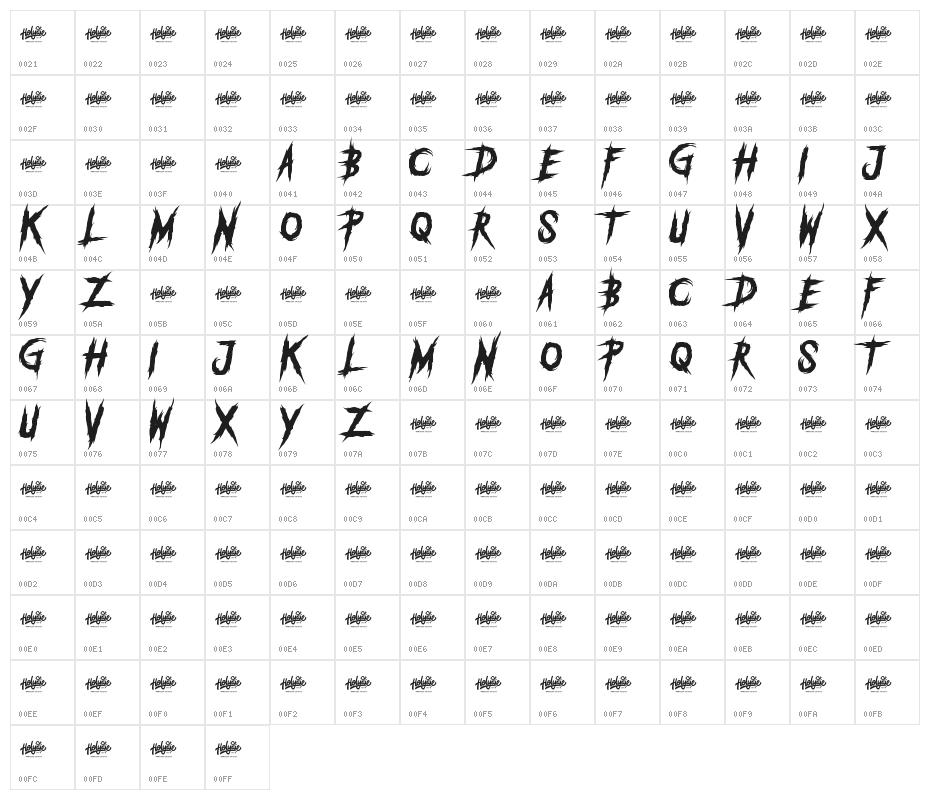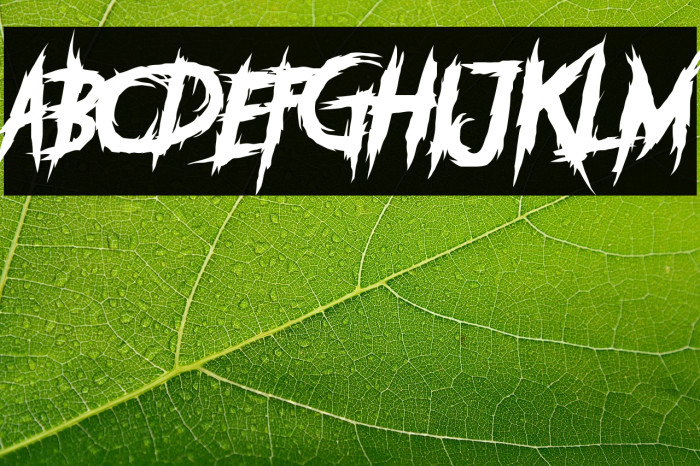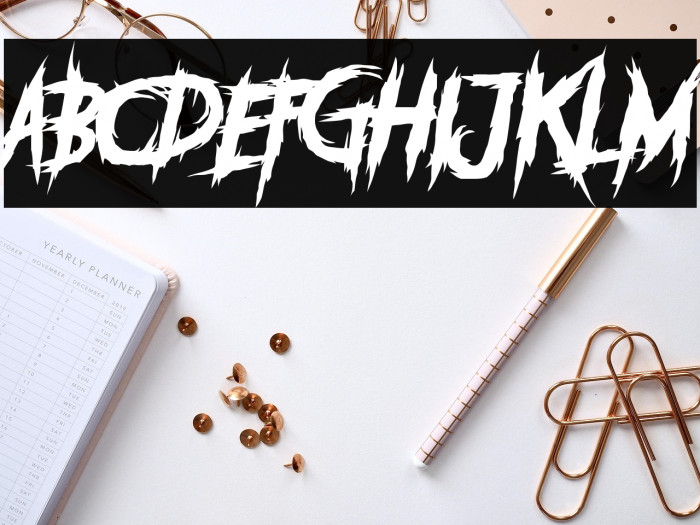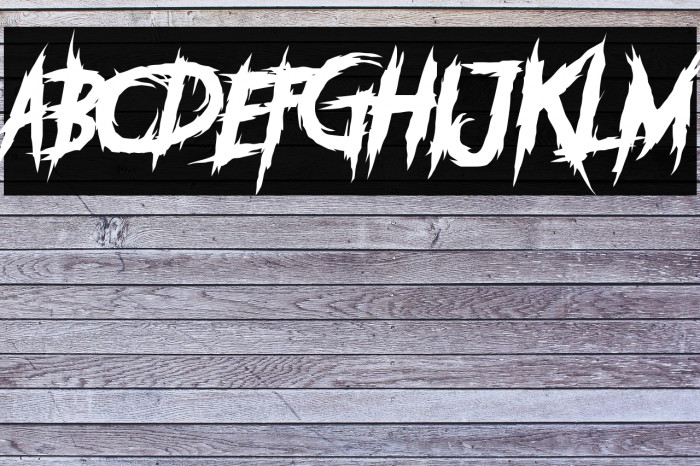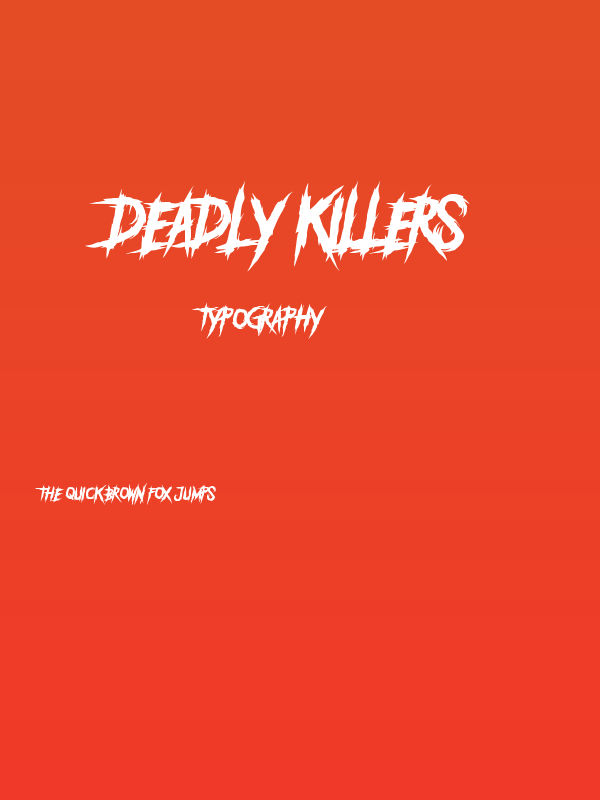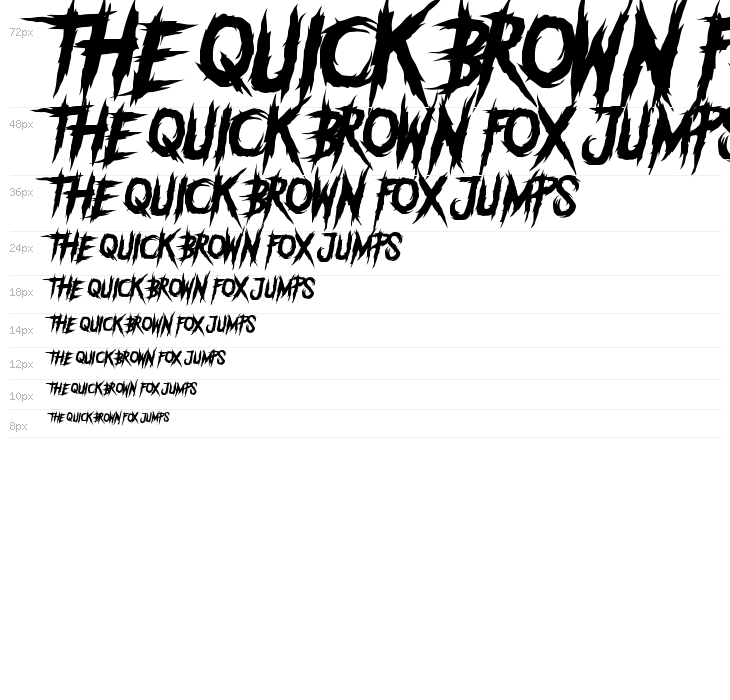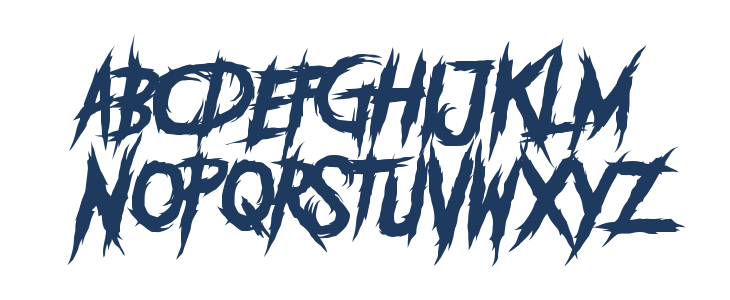
DEADLY KILLERS Font
DEADLY KILLERS Description
This font features a bold, aggressive style with sharp, jagged edges that give it a fierce and dynamic appearance. The letters are heavily stylized, resembling claw marks or torn fabric, which adds a sense of movement and intensity. The uppercase letters dominate the design, with each character exhibiting unique cuts and angles that enhance the font's dramatic flair. This font is ideal for projects that require a strong visual impact, such as horror-themed designs, action movie posters, or edgy branding. Its distinctive look ensures that it stands out in any application, making it a powerful choice for creative projects.
| Proposed Projects | Ideal for horror-themed designs, action movie posters, edgy branding, and any project requiring a strong visual impact. |